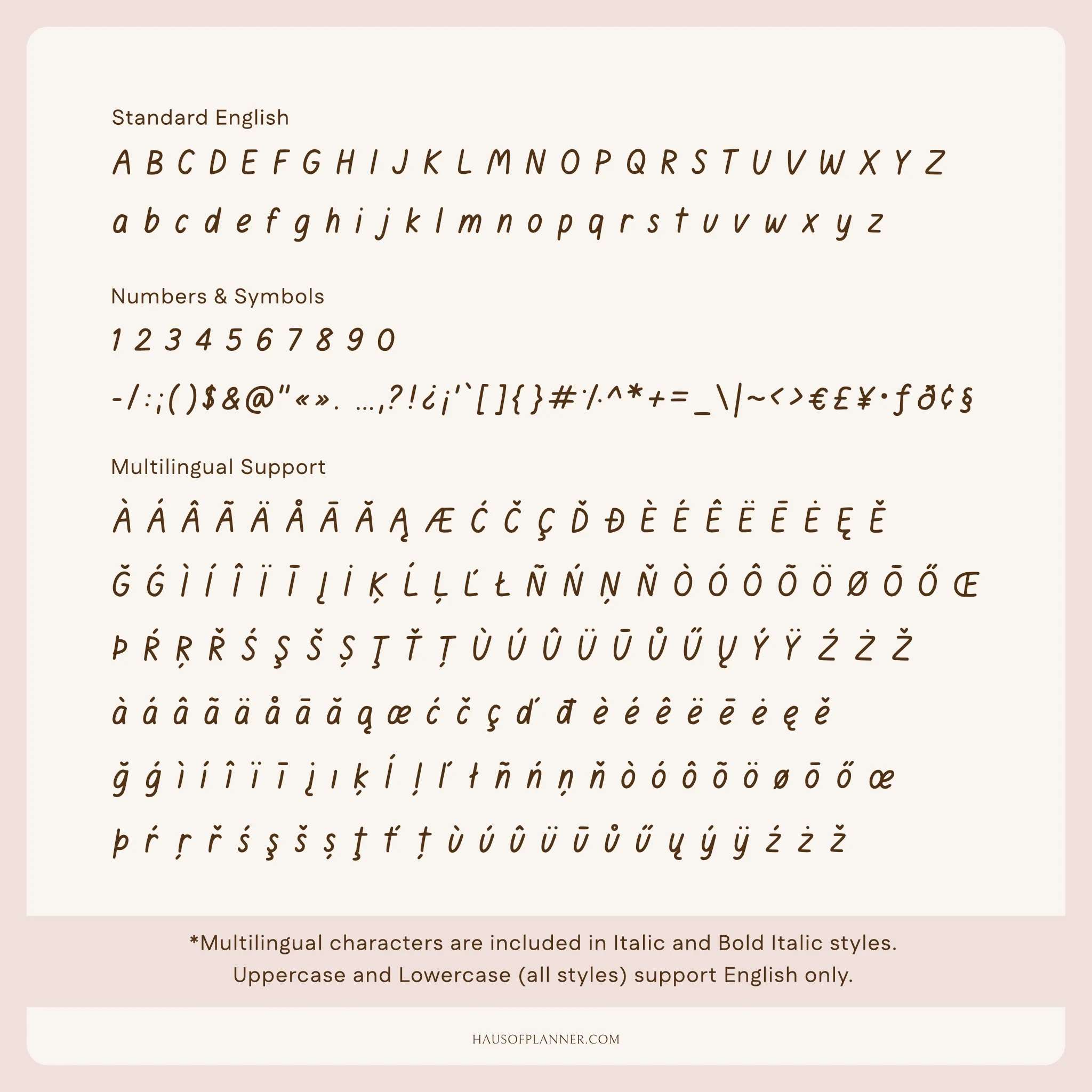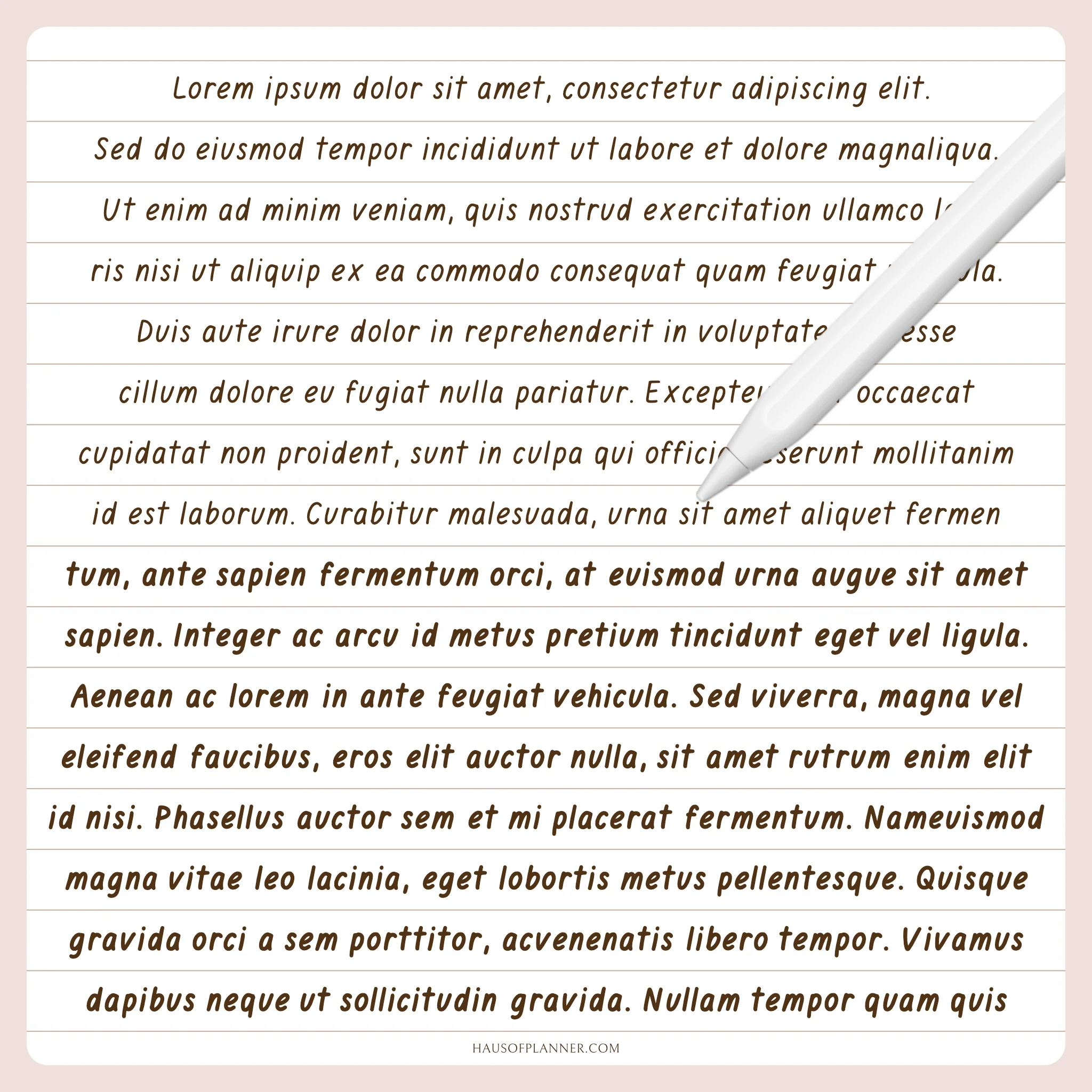
Handwriting Font | Italic
A neat handwriting font by Haus of Planner. Perfect for digital planning, note-taking, and journaling, this italic font includes 6 stylesFeaturing a wide range of characters and multi-lingual support, it’s designed to give your notes and plans a neat, clean, and organized look.